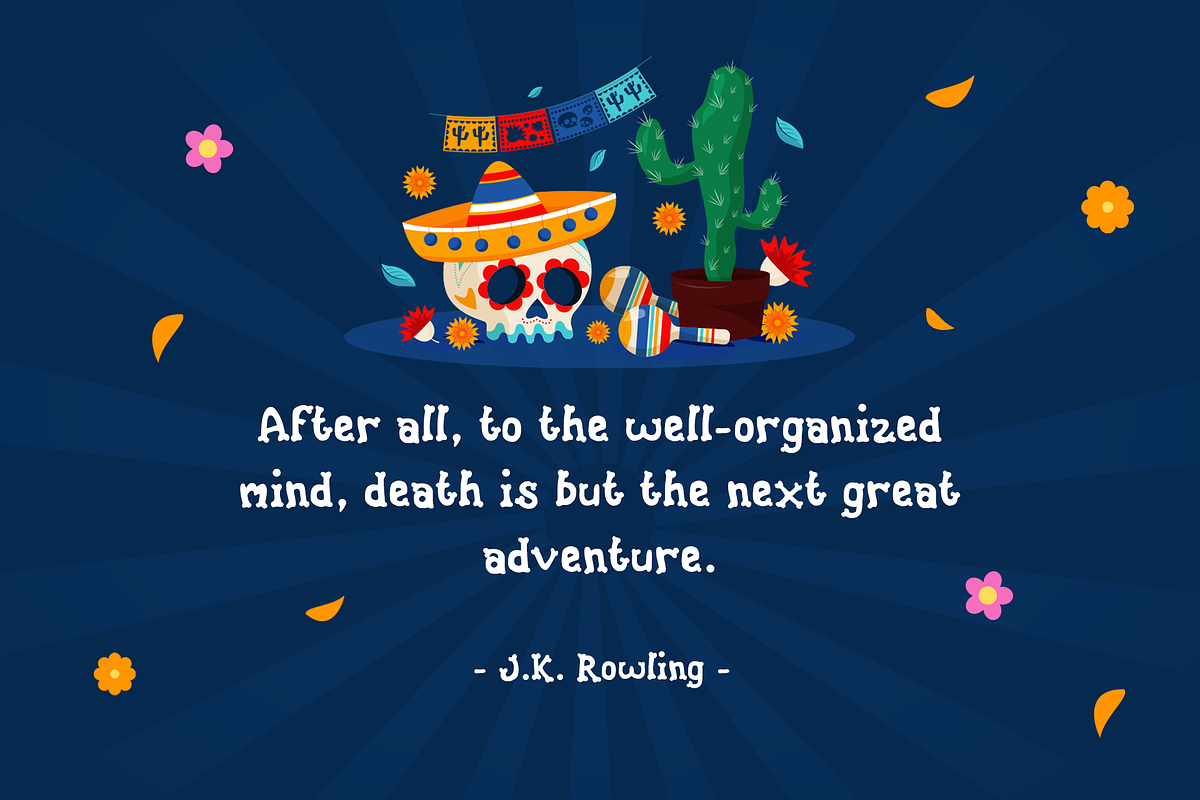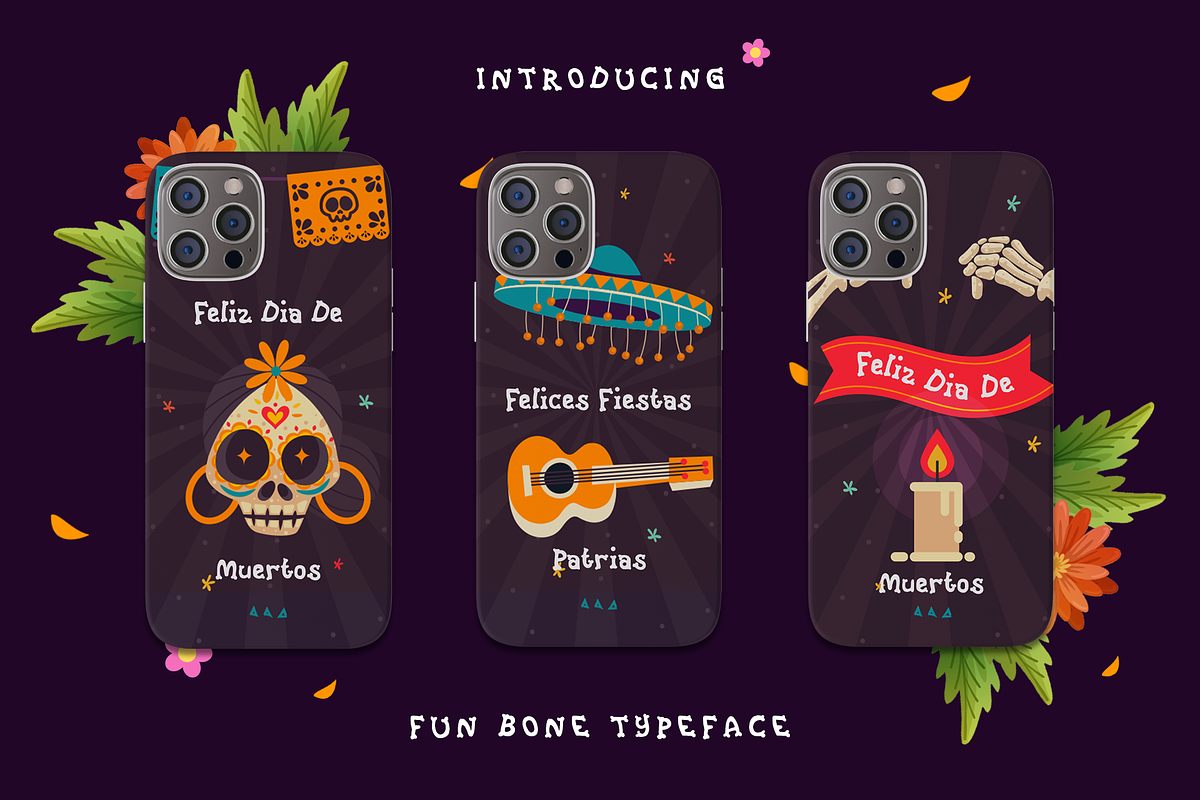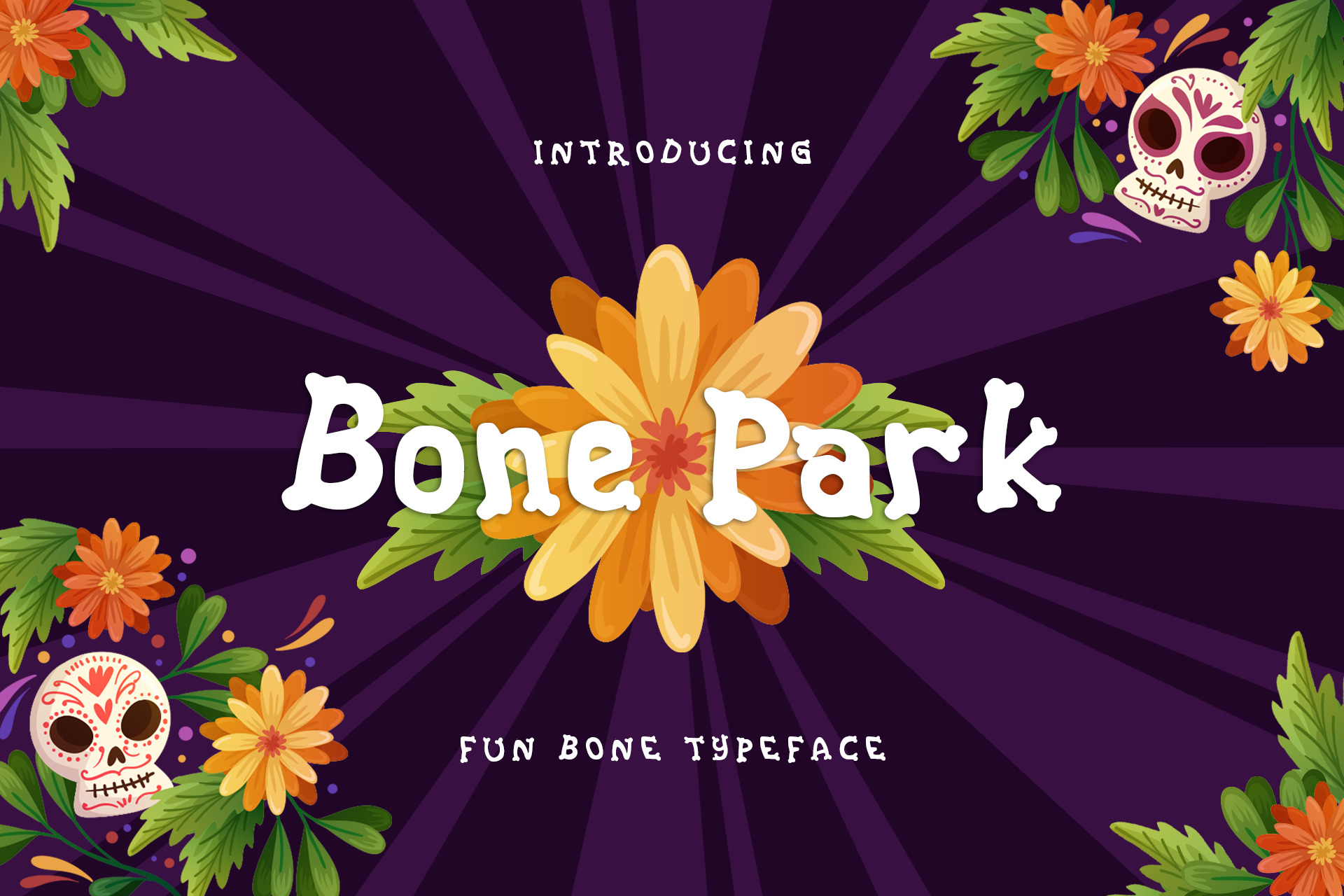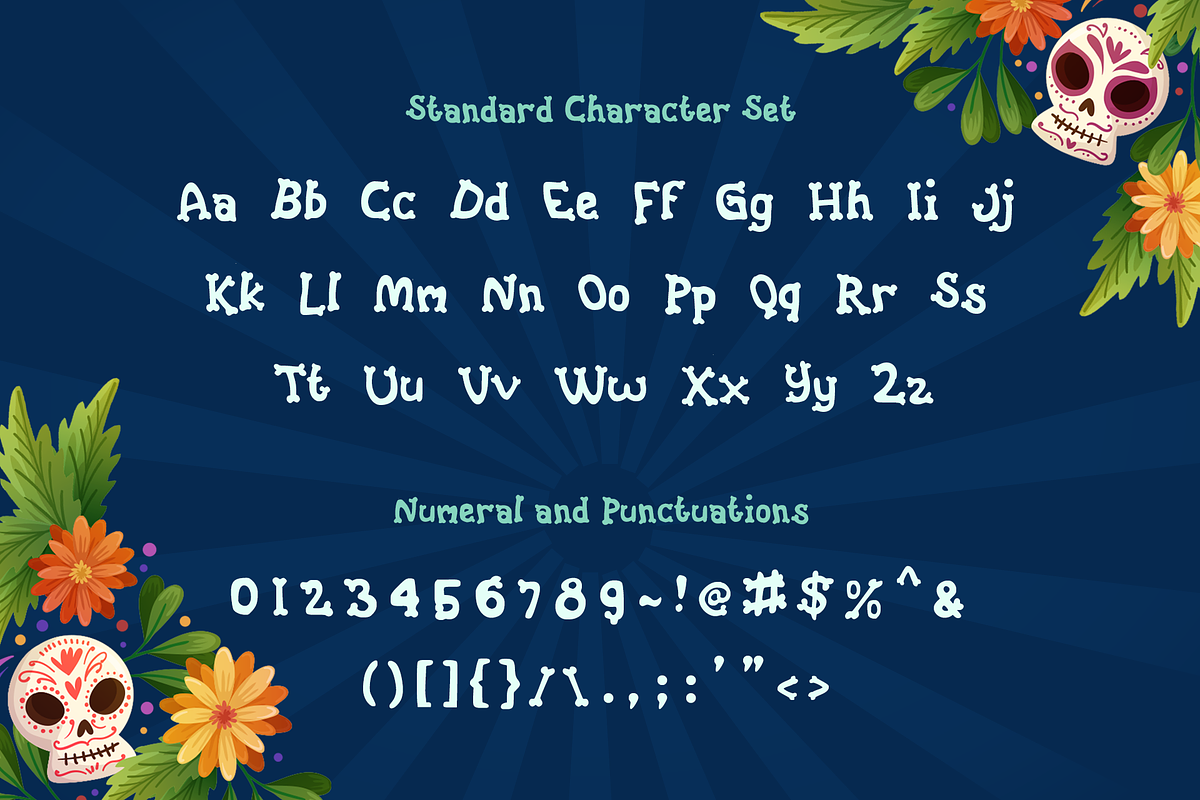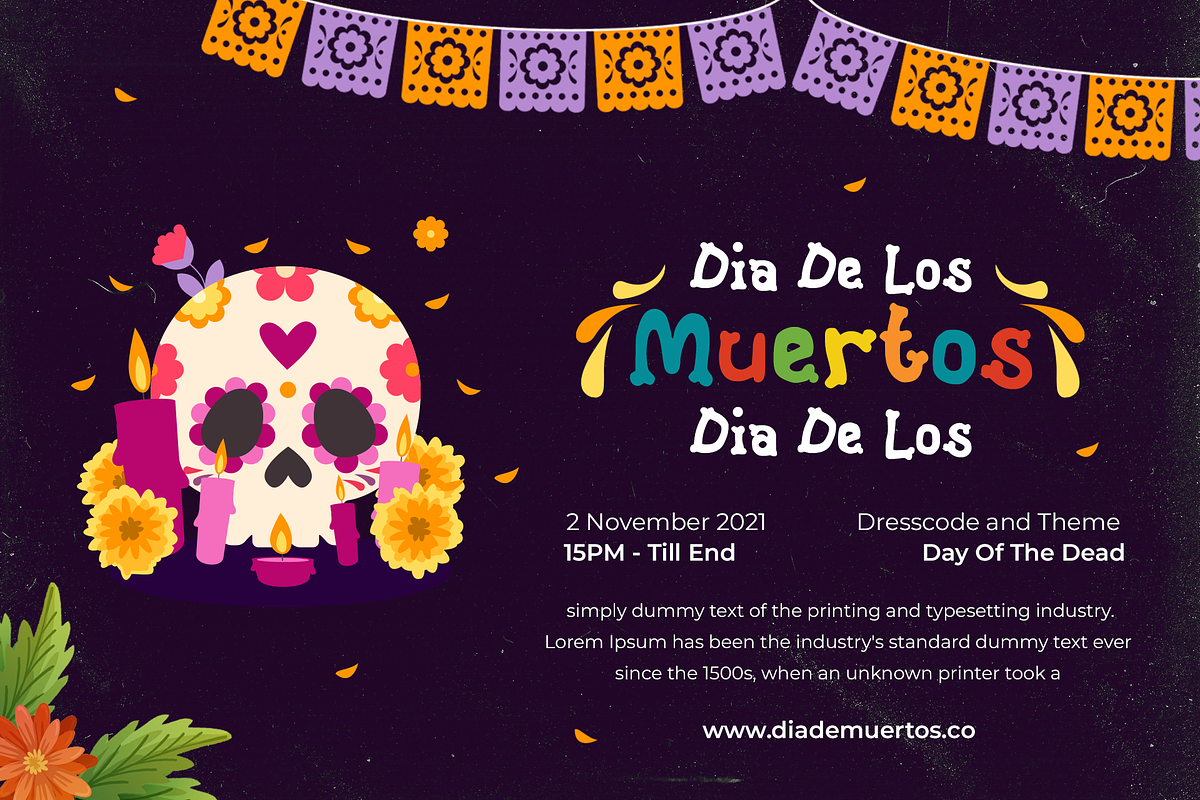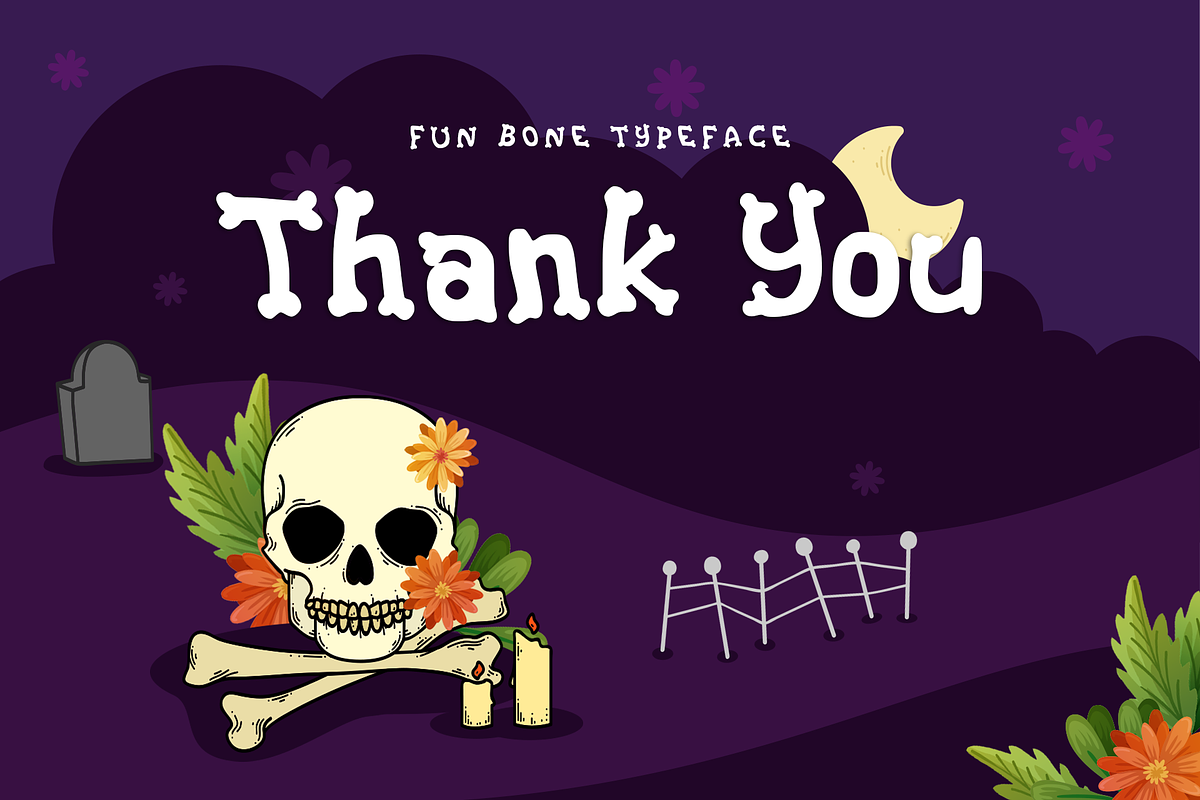
Bone-Park Fun Display Font
Bone Park Dead Flower Display Font, is our new font and suitable for mockup or any work.
Great for Sticker, Invitation Card, Brochure, etc.